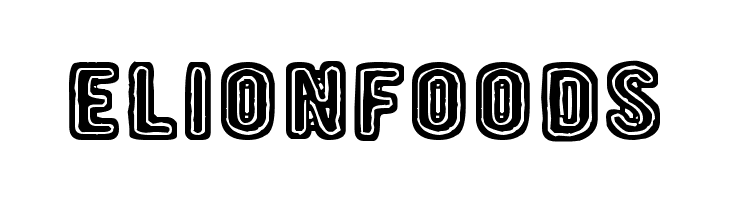
A pixelated, outlined font inspired by classic 8-bit video games.
A playful, bubble-like font with a hand-drawn, 1980s-inspired style.
A futuristic, geometric font with angular and curved elements, perfect for modern designs.
A futuristic, geometric font with a 3D outline effect.
A futuristic, 3D outlined italic font with a geometric design.
A futuristic, geometric font with angular and rounded elements.
A bold, italic, futuristic font with rounded characters and a sleek design.
A futuristic, geometric font with bold, rounded characters and minimal contrast.
A futuristic, bold italic font with a dynamic and geometric style.
A futuristic italic font with geometric precision and dynamic style.
A modern, geometric outline font with clean lines and a futuristic aesthetic.
A futuristic, geometric font with clean lines and consistent stroke width.
A modern, decorative font with hollow, outlined characters.
A playful, handwritten font with rounded, bubbly characters.
A bold, brush-textured font with a dynamic and artistic style.
A bold, distressed font with a grunge texture for impactful designs.
A bold, angular font with high contrast and geometric elements.
A bold, condensed font with a modern and impactful style.
A modern, condensed font with smooth, rounded strokes and a professional appearance.
A modern, condensed sans-serif font with a sleek, uniform design.
A modern, condensed sans-serif font with bold, uniform strokes and tight spacing.
A modern, condensed font with thin strokes and geometric shapes.
A bold, modern font with thick, uniform strokes and a strong presence.
A bold, condensed font with a modern and impactful style.
A modern, condensed sans-serif font with geometric shapes and consistent stroke width.
A modern, condensed sans-serif font with a sleek and efficient design.